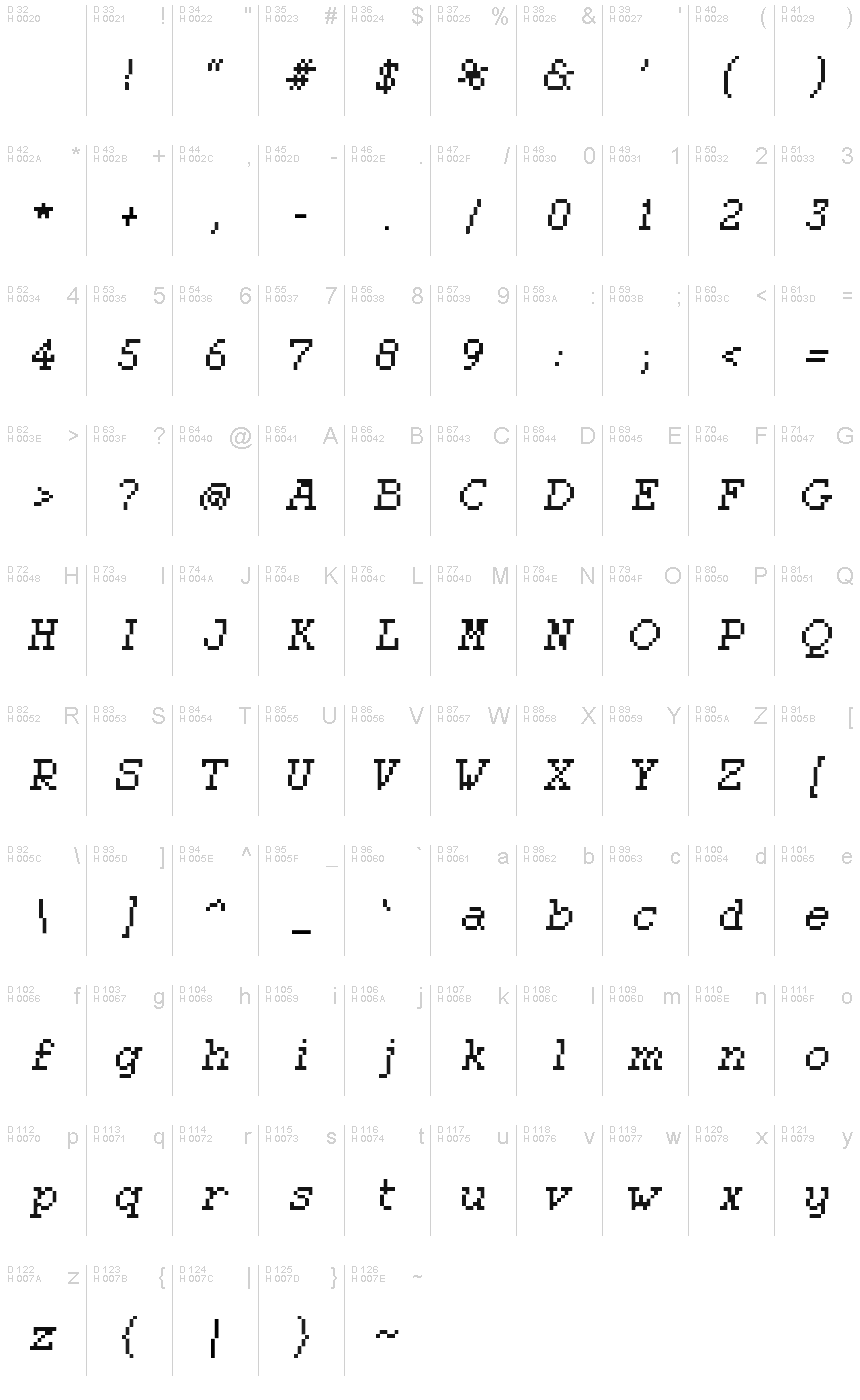
Pixolde-Italic
Pixolde Italic is a captivating pixelated font that exudes a retro-futuristic charm. Its sharp, angular lines and geometric shapes create a striking visual impact, evoking a sense of digital nostalgia. This font's distinct style lends itself effortlessly to a wide range of design applications, from eye-catching headlines and logo designs to immersive gaming interfaces and retro-inspired branding. The Pixolde Italic's bold, pixelated aesthetic makes it a versatile choice for designers seeking to infuse their work with a unique, modern flair.
The font's designer, Jeti, has skillfully captured the essence of classic bitmap typography, resulting in a typeface that is both visually compelling and highly functional. Its crisp, legible characters ensure smooth readability, making Pixolde Italic an excellent choice for both display and body text applications.
Pixolde by jeti: A simple serif font with the tiniest hint of typewriter aesthetics.